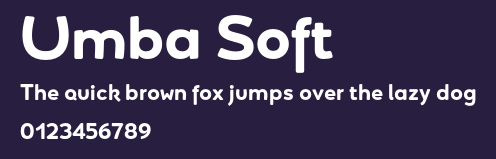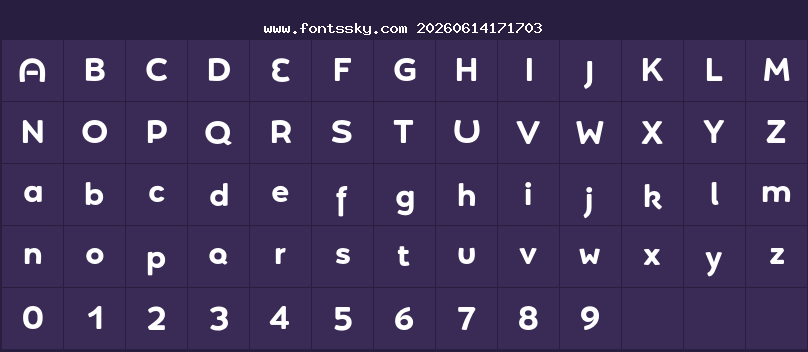
• Font Name: Umba Soft
• Full Font Name: Umba Soft Alt Bold
• Designer: Anita Juergeleit
About Umba Soft.otf
Umba Soft.otf is a modern, elegant sans-serif font designed for ultimate readability and visual harmony. Perfect for branding, headlines, web design, and print materials.